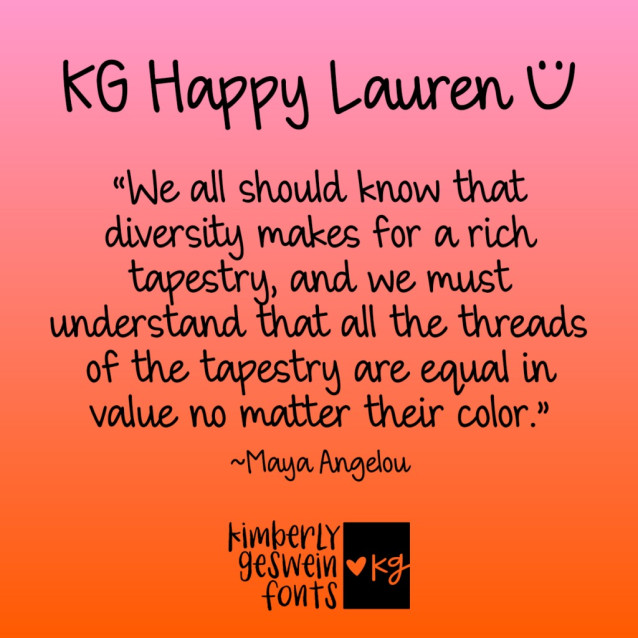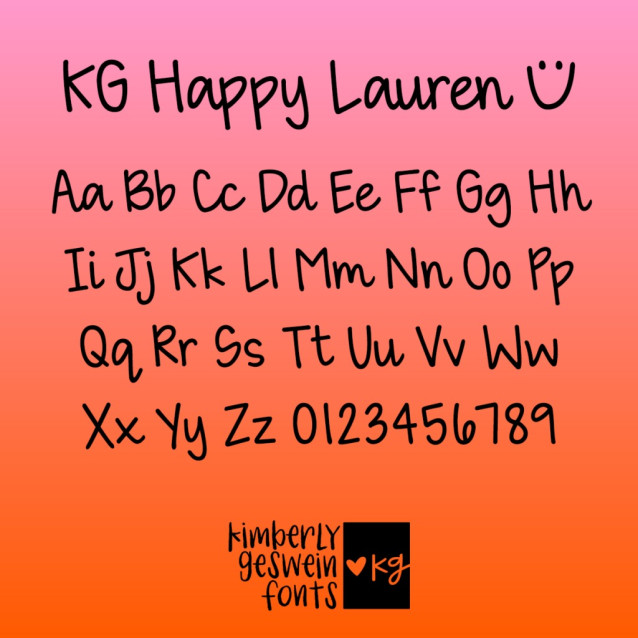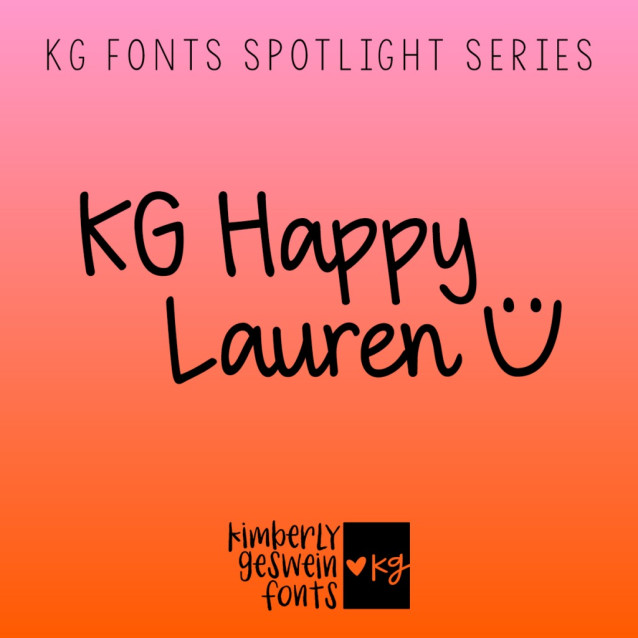
KG Happy Lauren Font
KG Happy Lauren Font is the happiest, sunniest, most cheerful font you could add to your collection. She radiates sunshine and good vibes. The adorable smiley face is accessible via the vertical bar key!